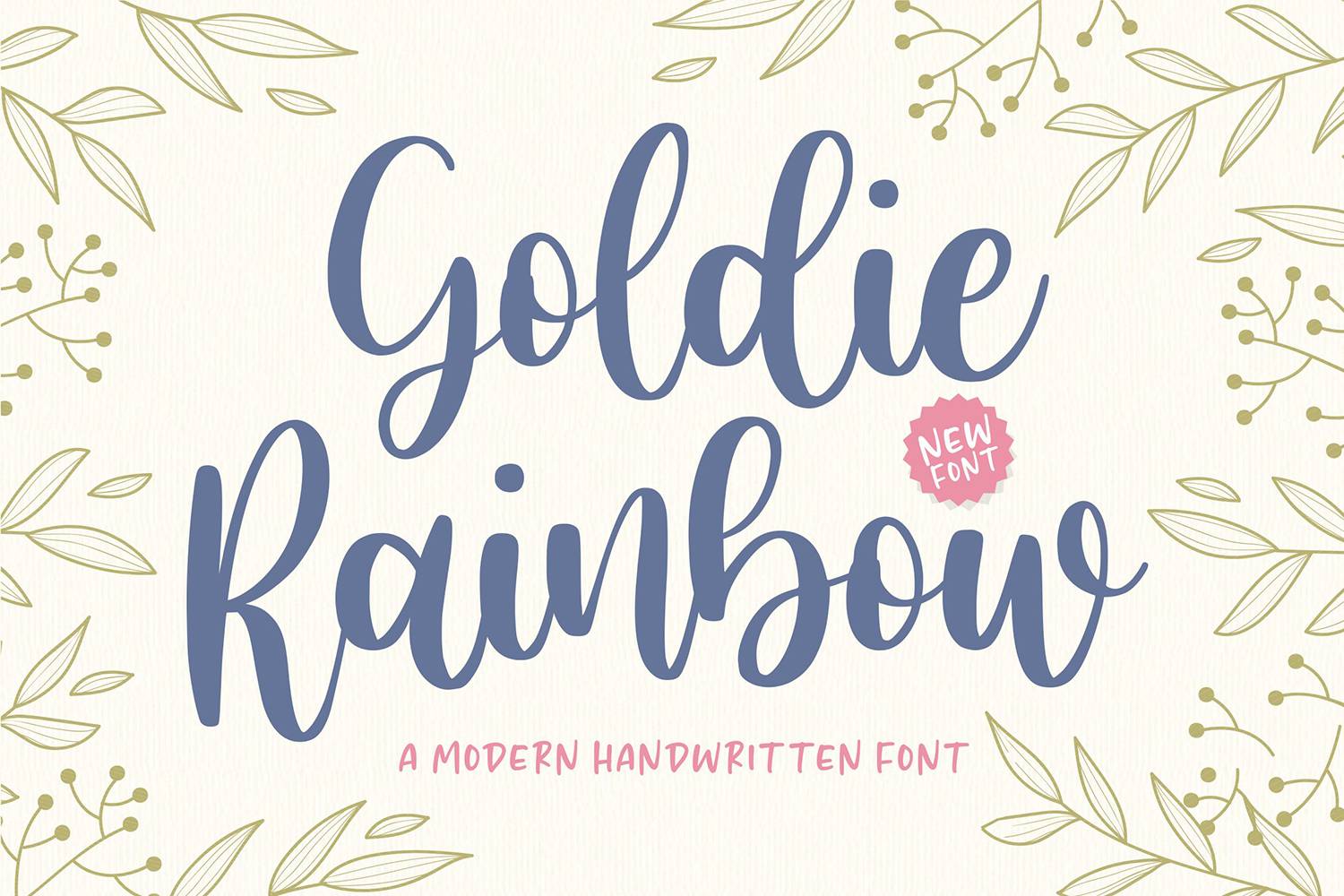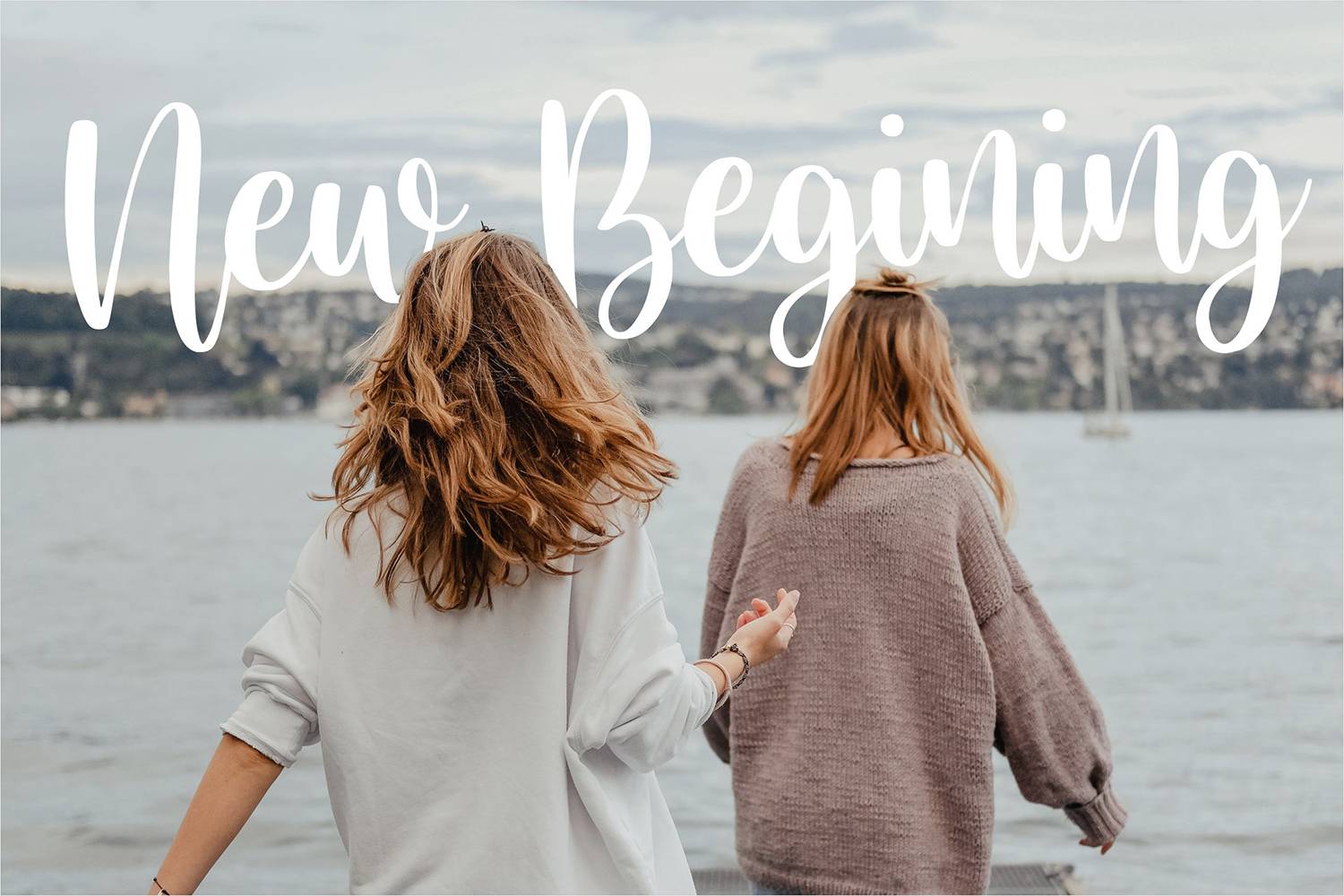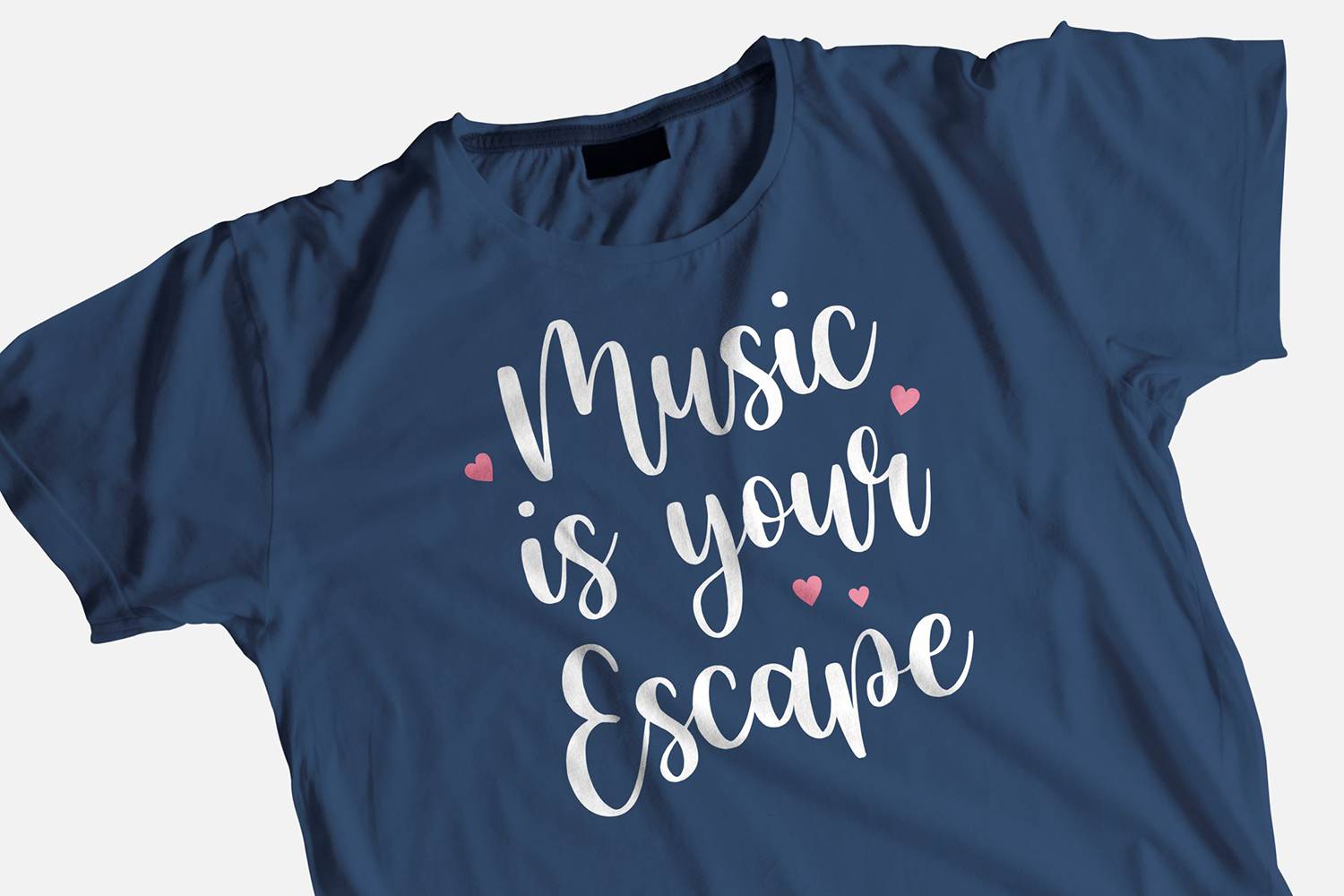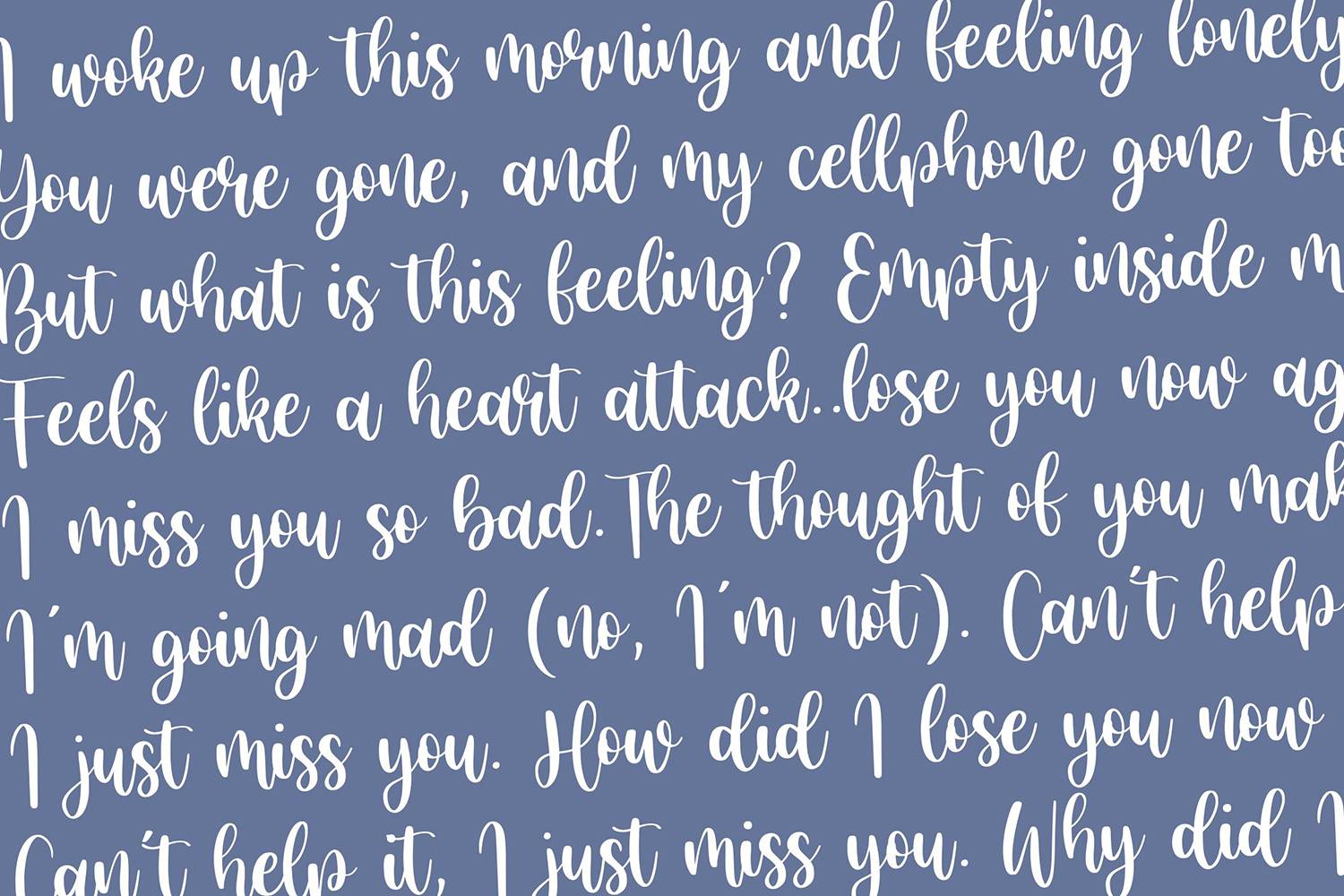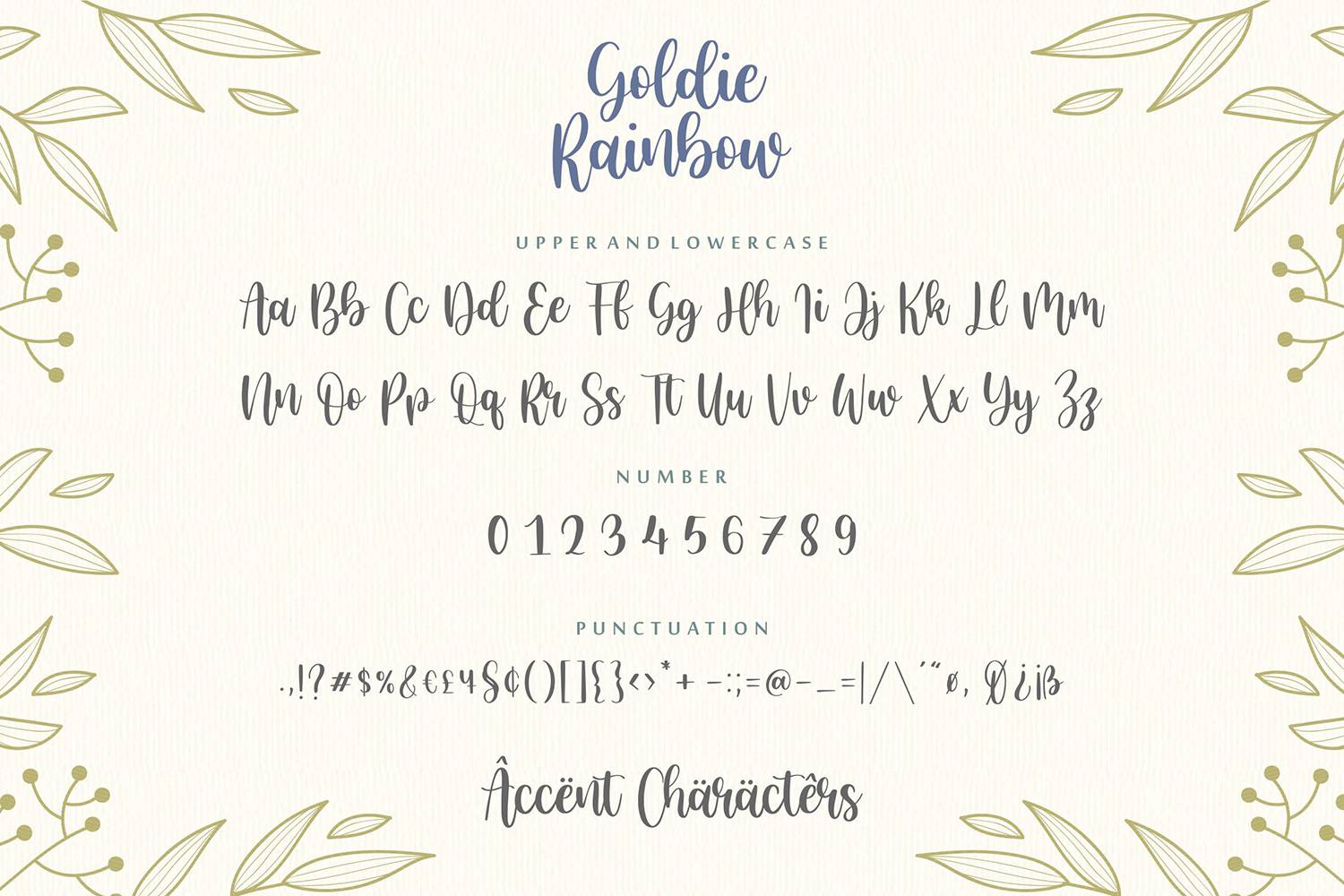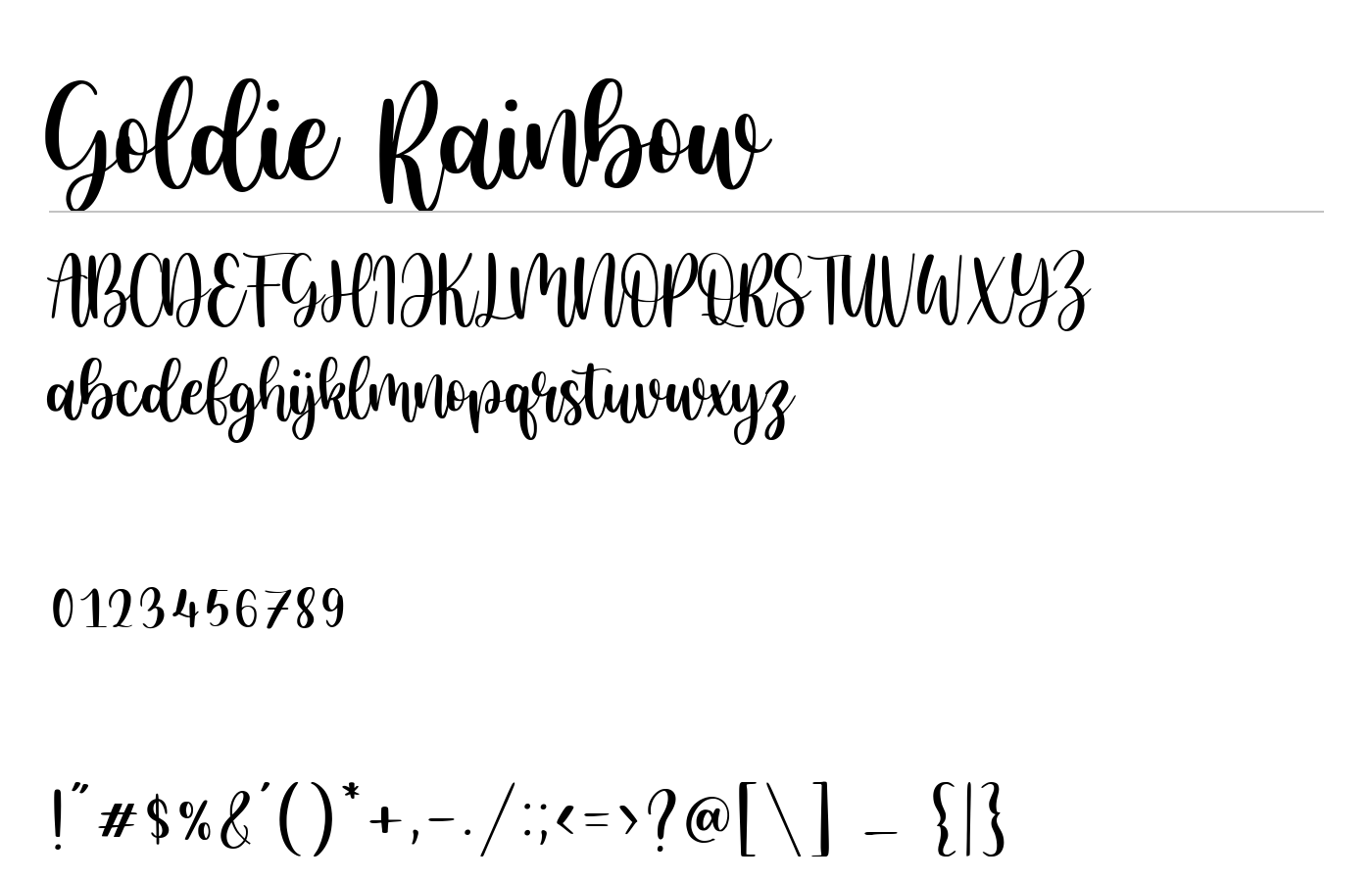
Goldie Rainbow is a playful and elegant script font with a lively, handwritten style that features both flowing uppercase and rounded lowercase letters. It has a medium weight with smooth, curvy strokes and a casual yet refined feel, making it perfect for creative branding, invitations, and playful editorial use. This font works well where a personal, friendly touch is desired, adding charm and warmth to both digital and print designs.
Goldie Rainbow Font
About Goldie Rainbow Font